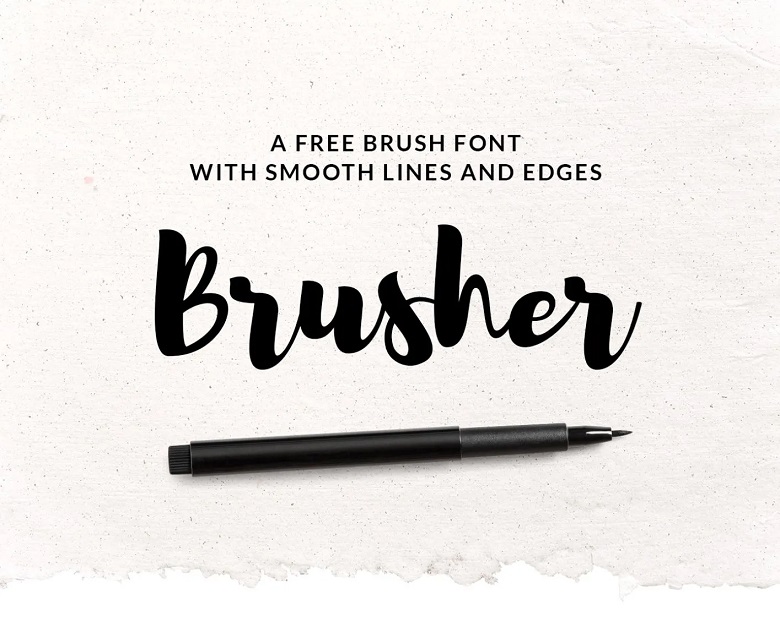
Brusher Font
Today’s special resource is a free stylish brush font that will look great in your future designs. Brusher has 100 glyphs done in precise stroke/ smooth line that will naturally give your text a hand drawn type.